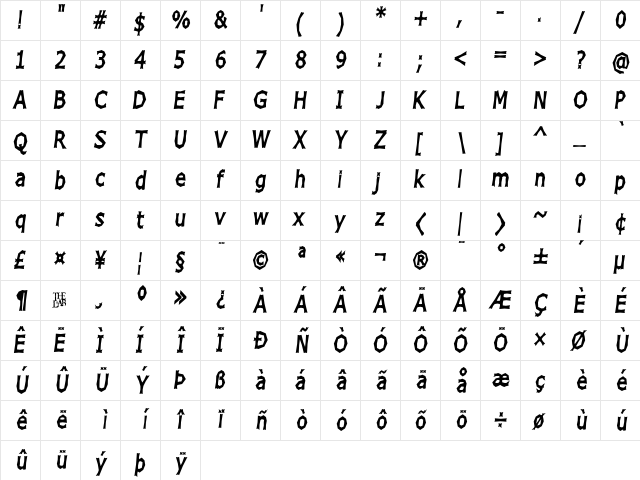
Chizz High Italic
| Designer | Graham Meade & Apostrophe |
Design Context for Chizz High Typeface
Chizz High offers clean, dependable letterforms without strong stylistic allegiance, making it a practical choice for designers who need flexibility. Its italic angle brings a sense of urgency and motion to the letterforms.
Pro Tip: Try Chizz High for annotation and caption copy alongside an upright companion — the contrast in angle creates a dynamic but ordered typographic system.